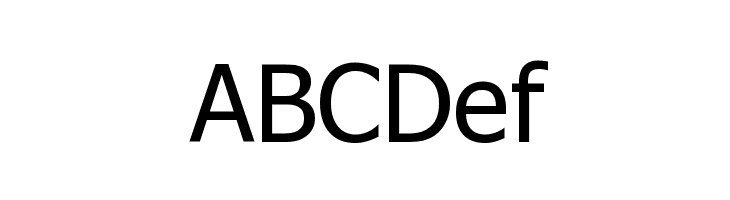
• Africa
A modern sans-serif font with clean lines and excellent readability.
• Larke Neue Regular
A modern, clean sans-serif typeface with excellent readability.
• Hind Vadodara Regular
A clean, modern sans-serif typeface with excellent readability.
• Libre Barcode 39 Text Regular
A barcode style font that replicates the look of traditional barcodes with clear, distinct characters.
A barcode-style font with vertical line patterns for each character.